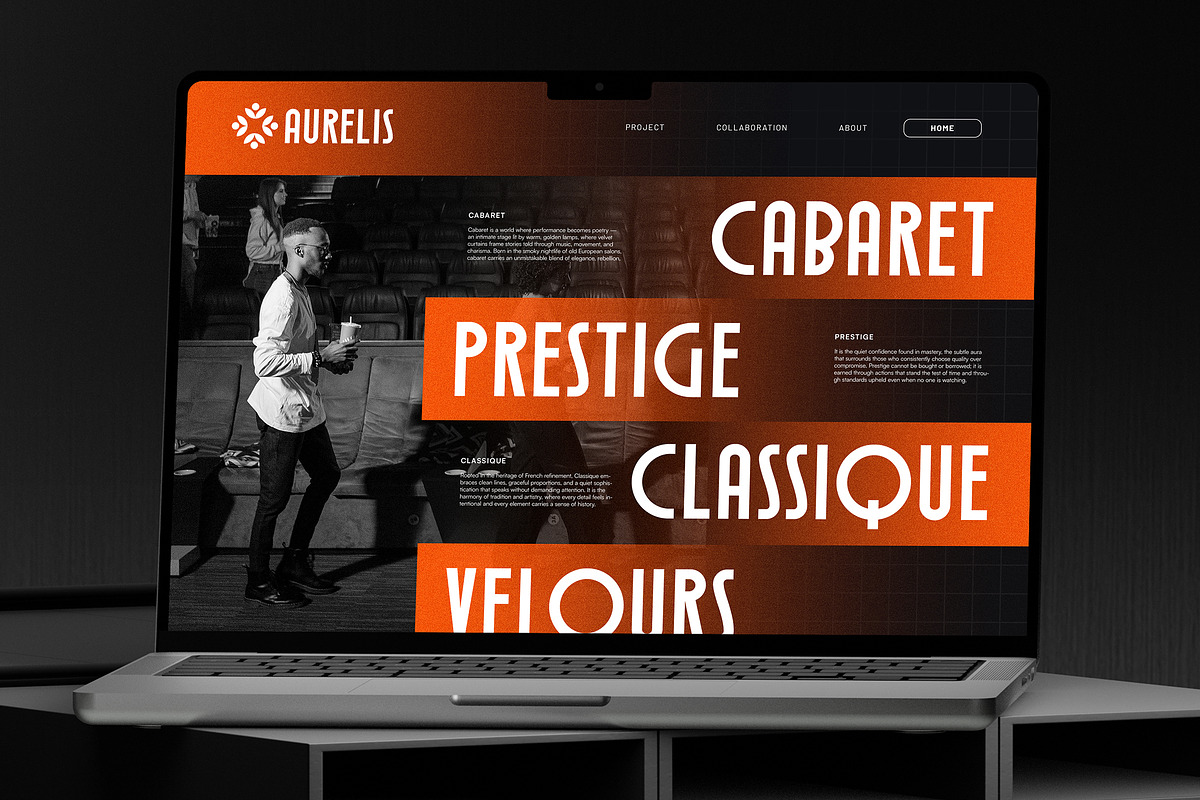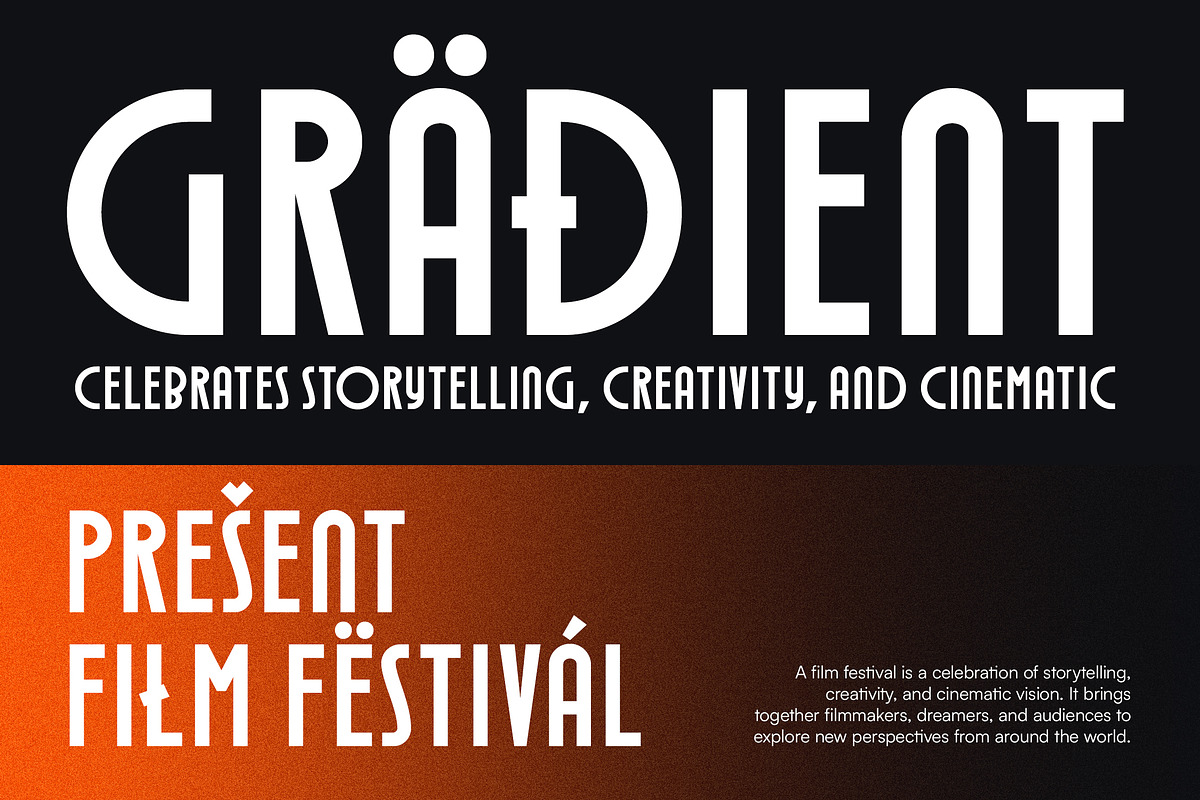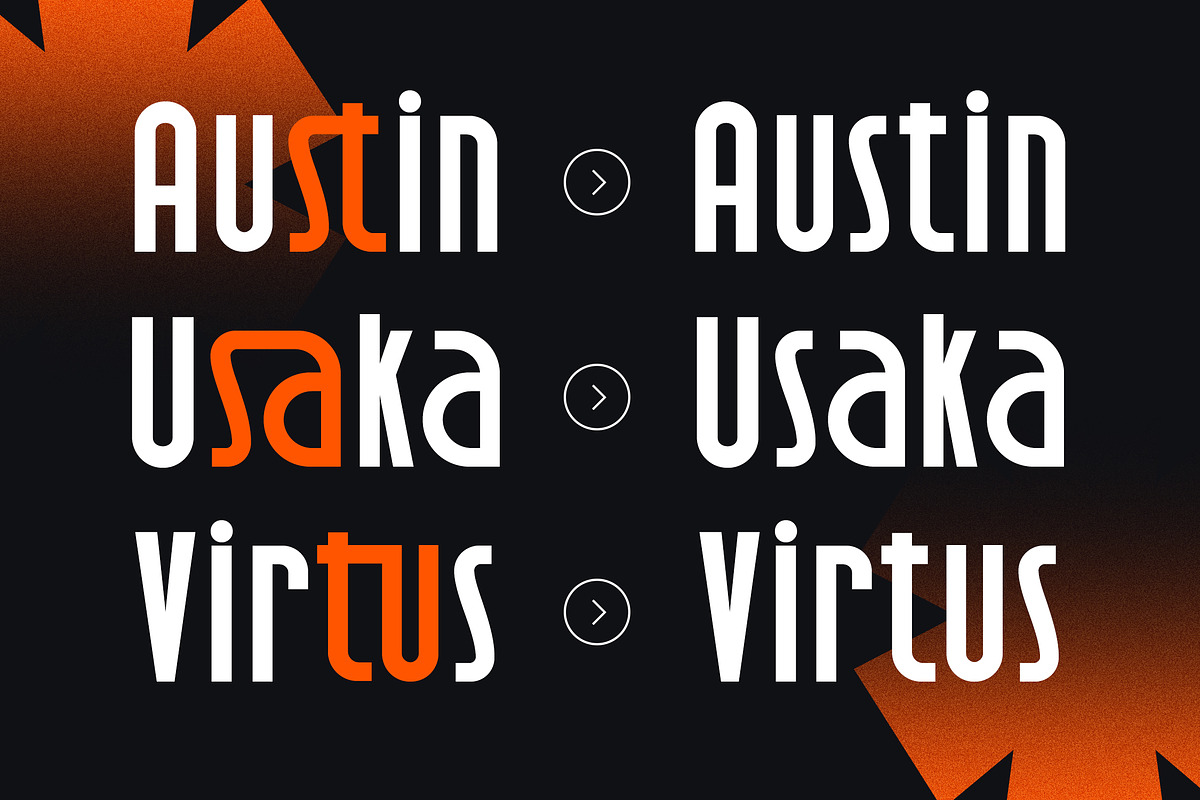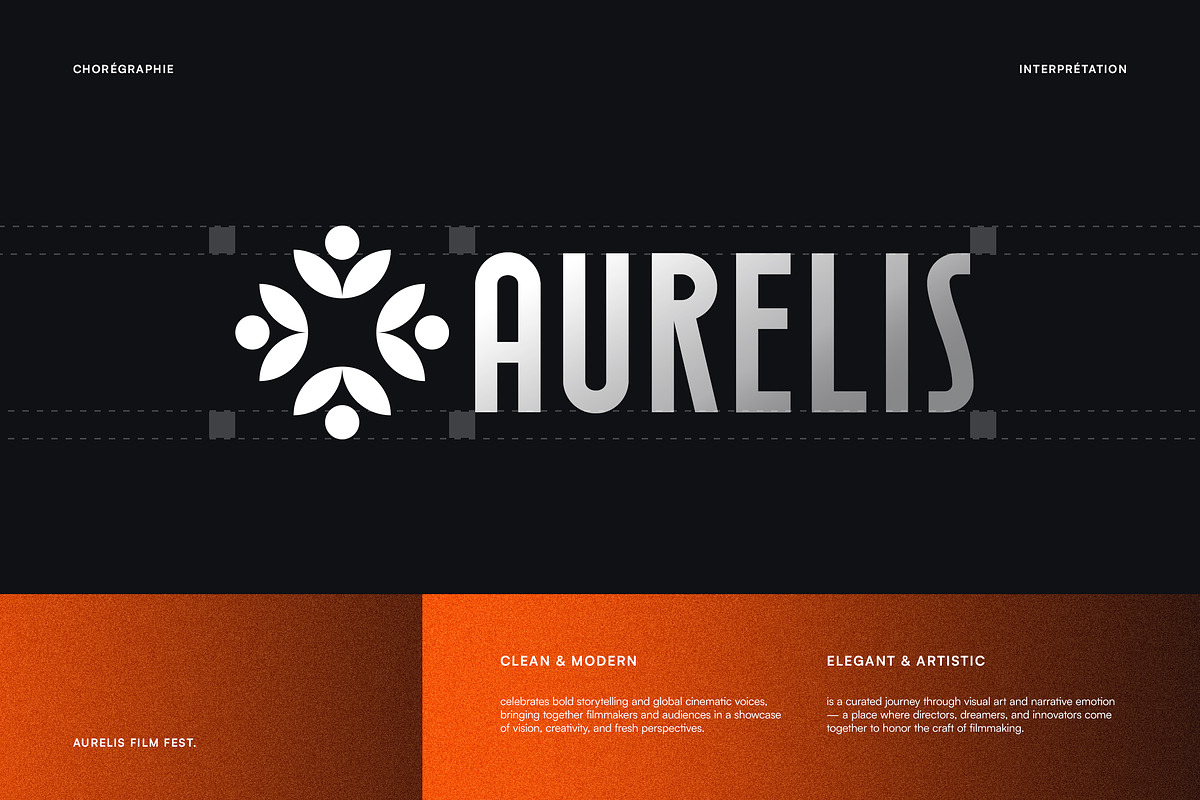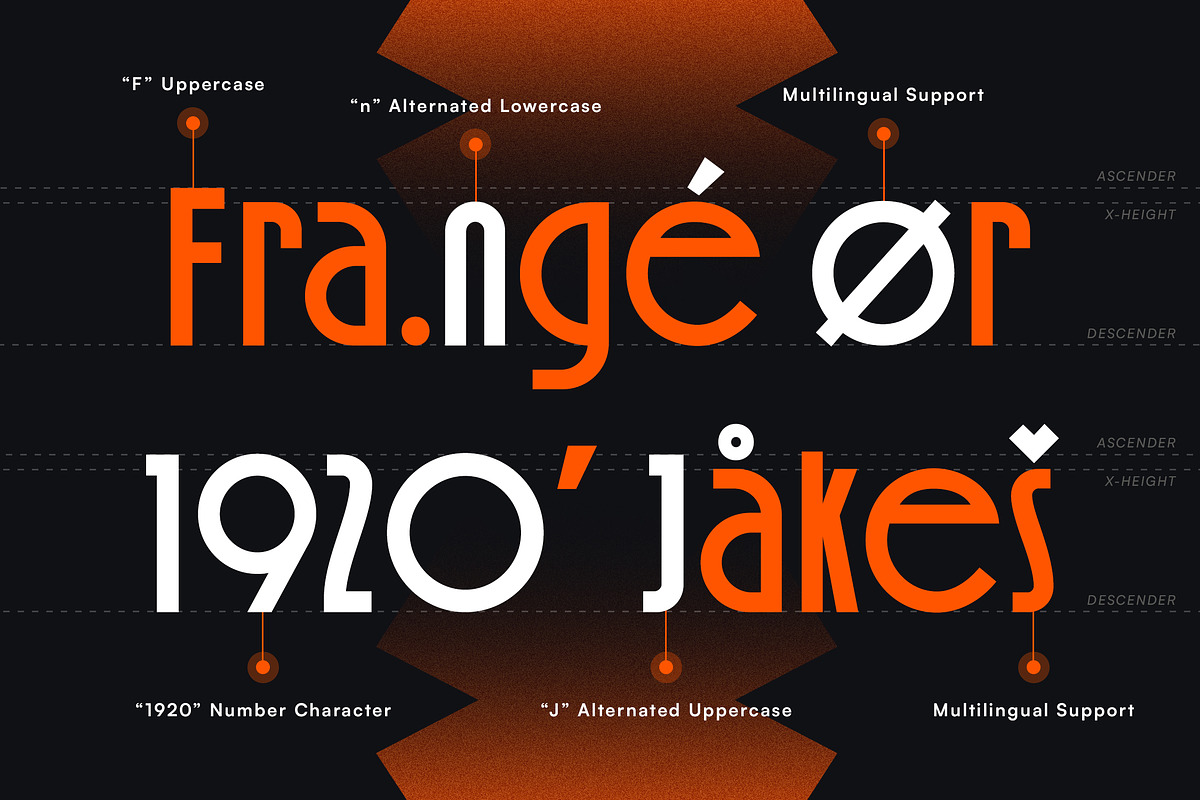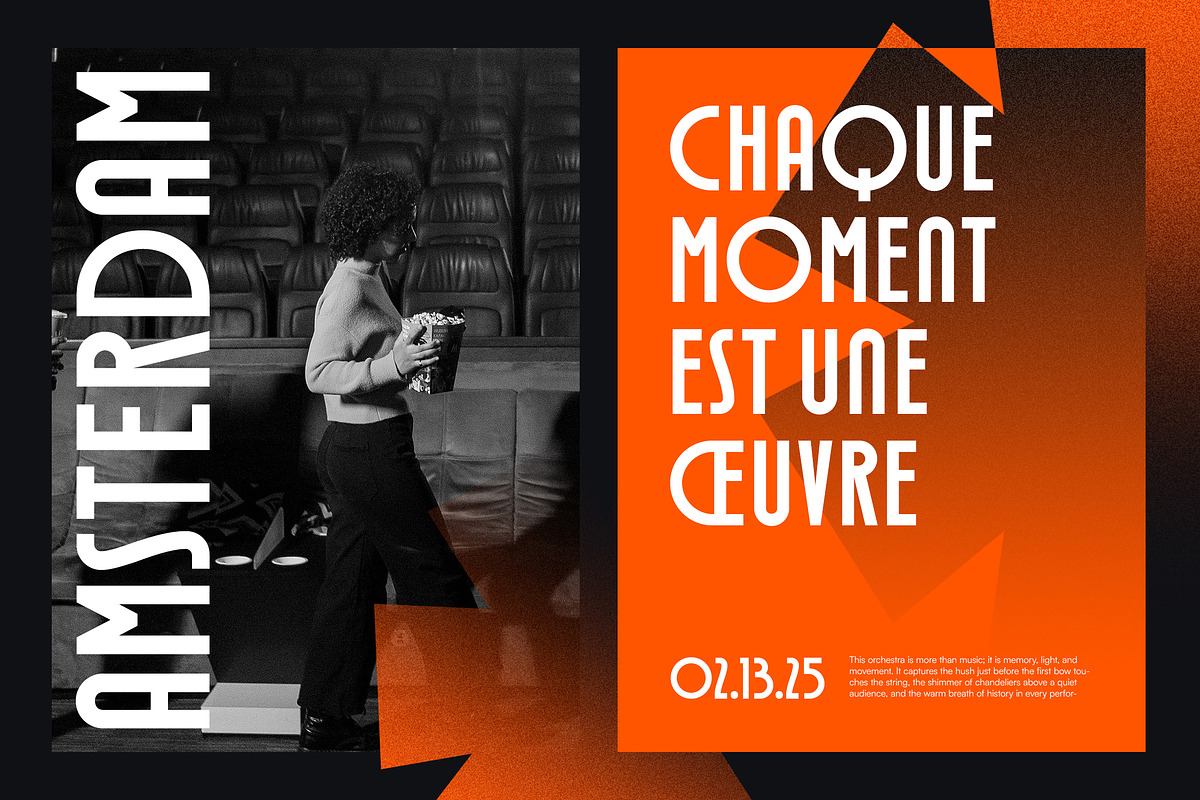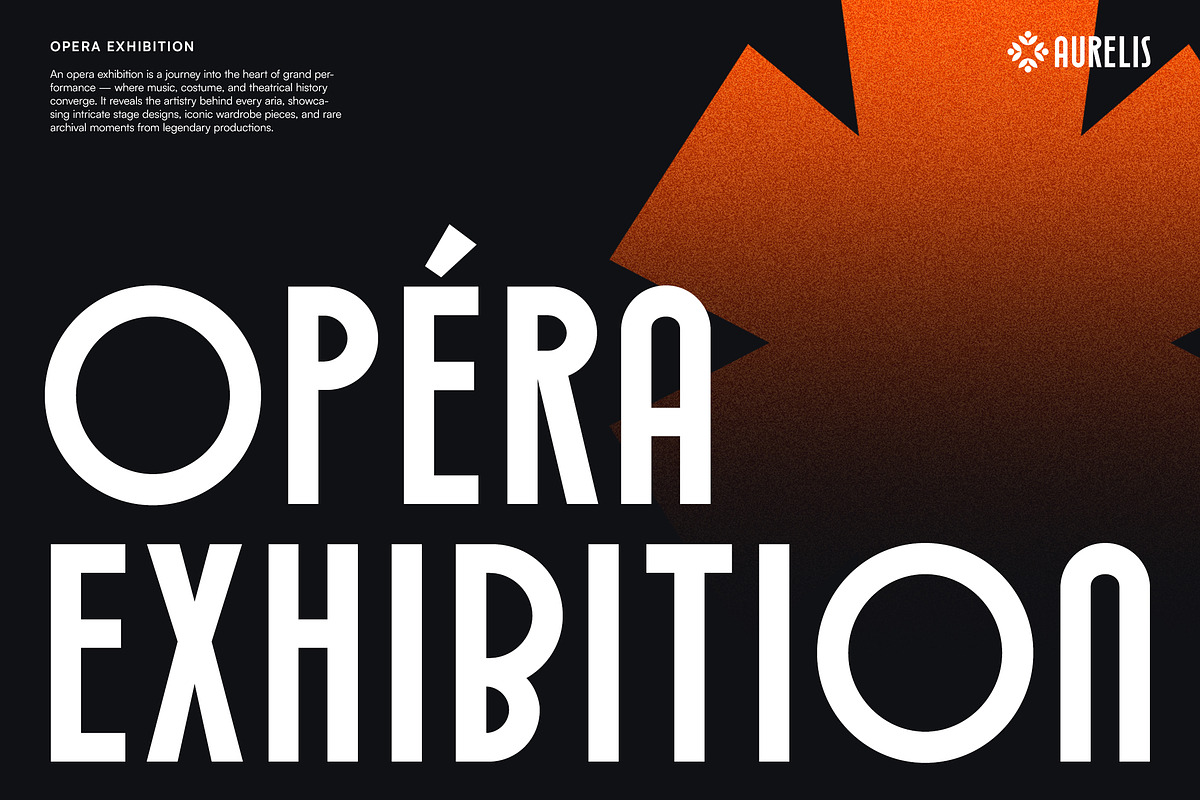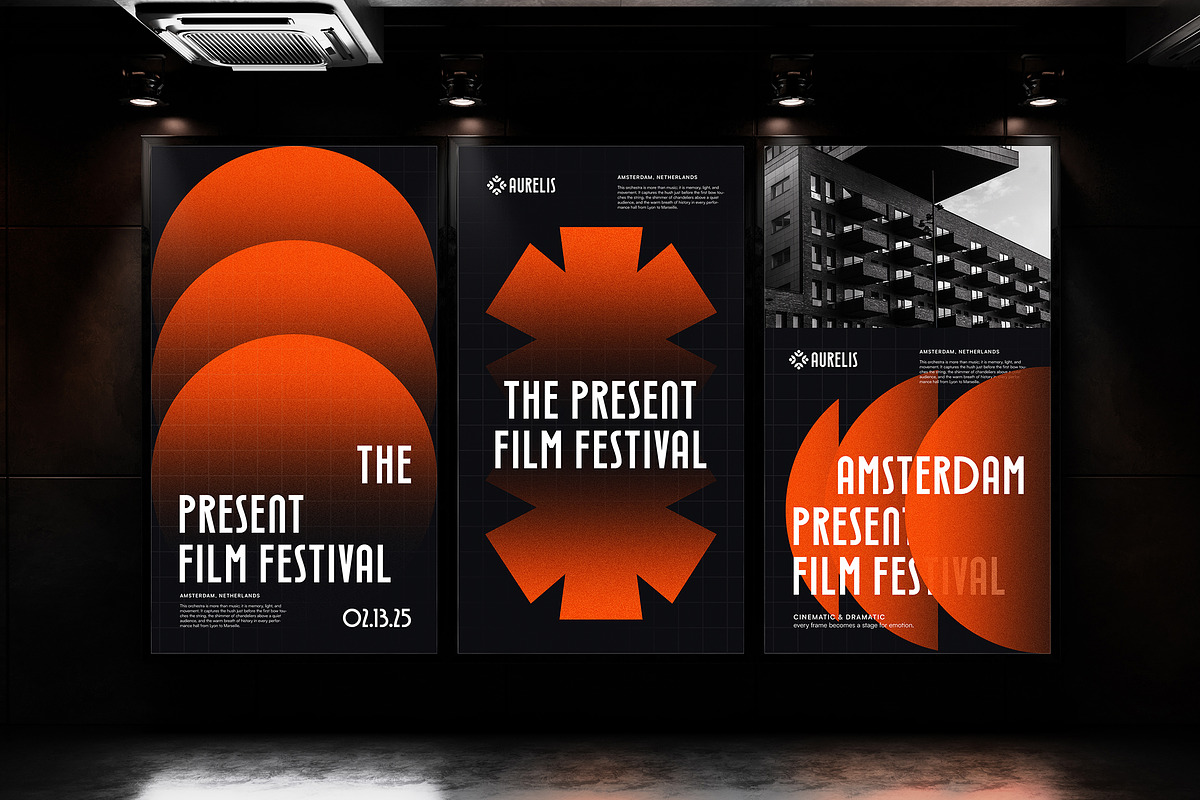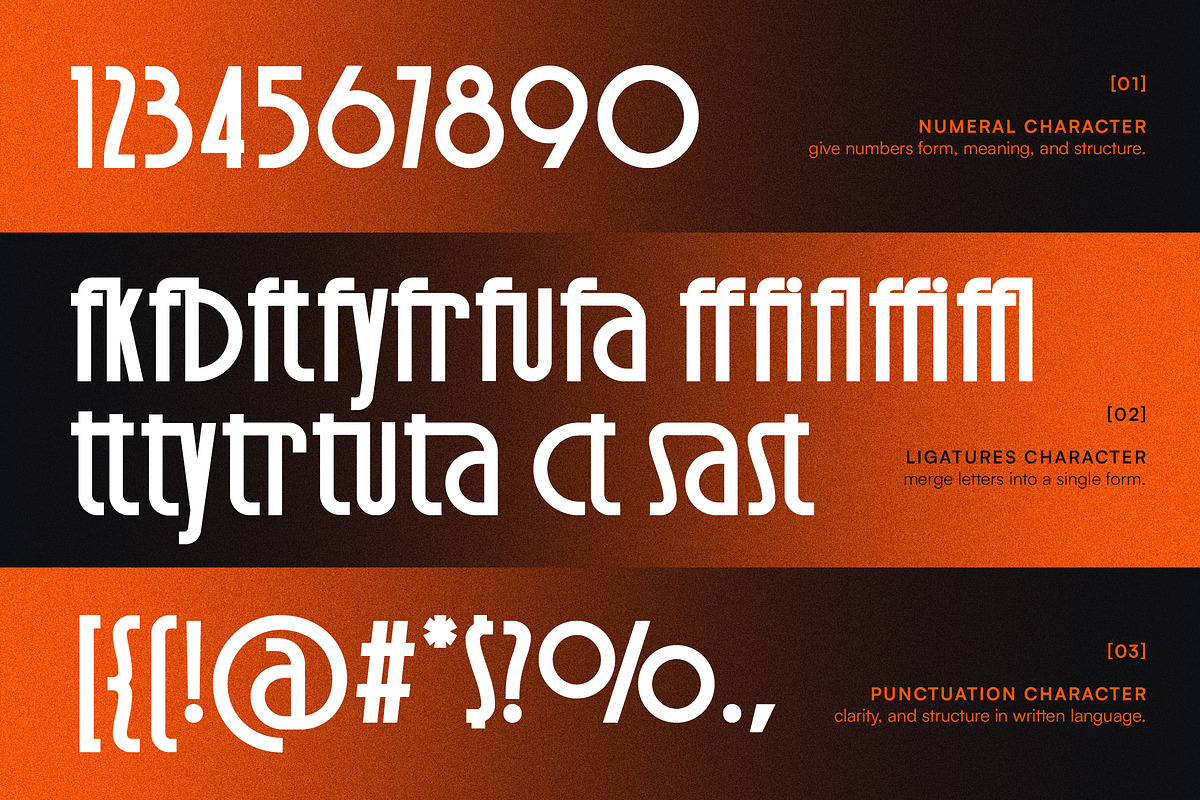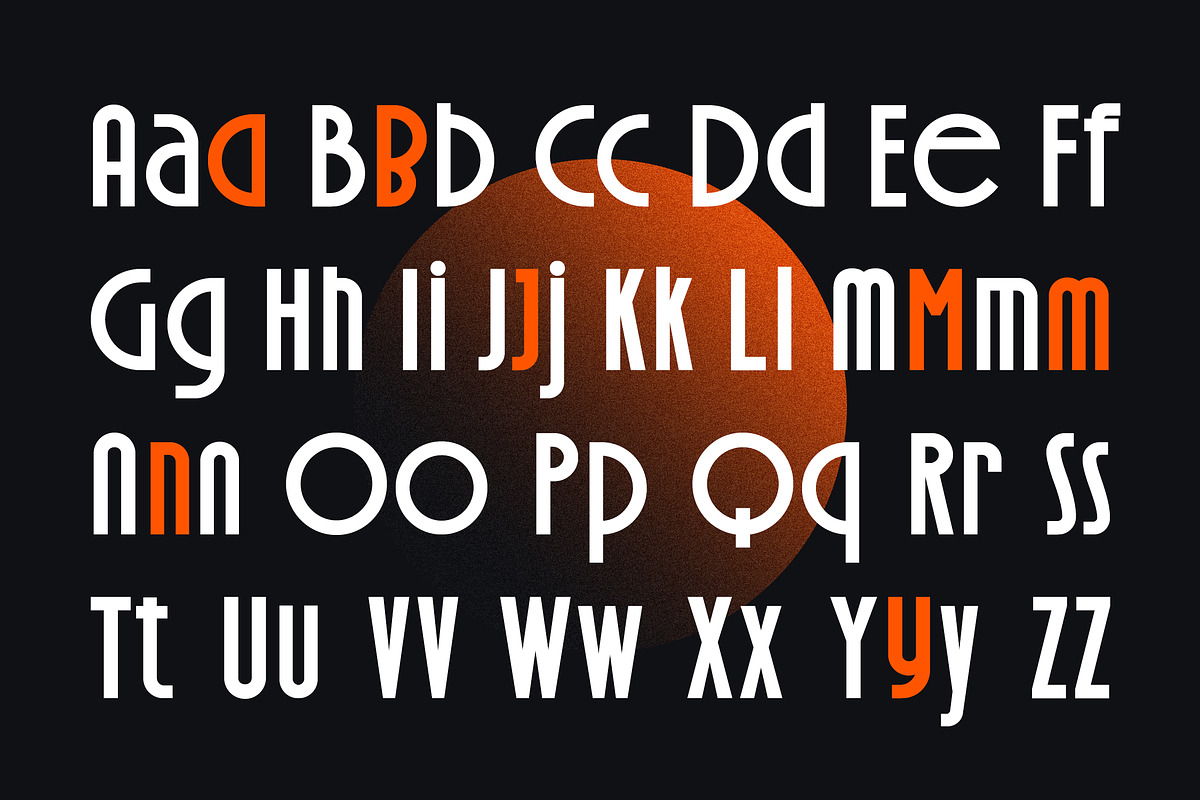
Gescobar – Clean Modern Condensed /
Gescobar – Clean Modern Condensed / Tall logo font - Classic Minimalist Logo Display Font
Gescobar – Clean Modern Art Deco Condensed / Tall Font is a refined and professional typeface. Inspired by classic Art Deco aesthetics and modern minimalist design, this condensed, tall, and bold sans font delivers a clean, elegant, and contemporary look. Gescobar is perfect for premium logos, wordmarks, and logotypes, as well as impactful posters, headlines, corporate branding, exhibitions, advertising materials and any projects that want to appear modern, confident, and timeless.